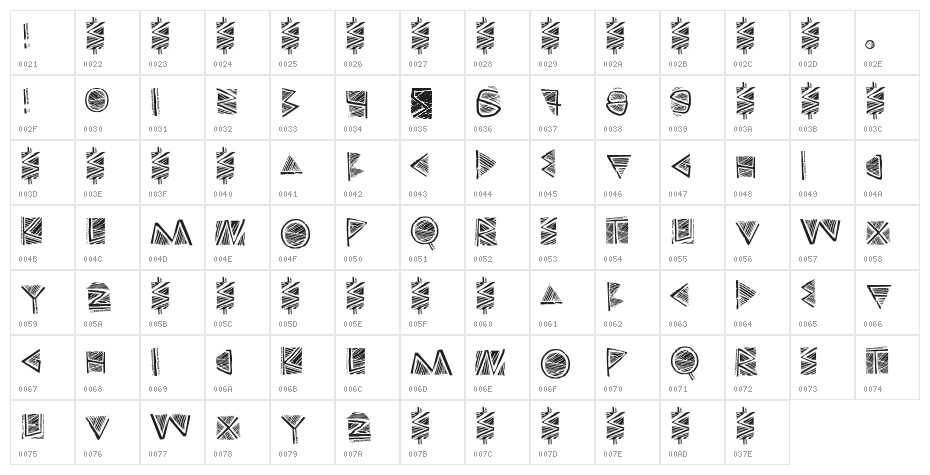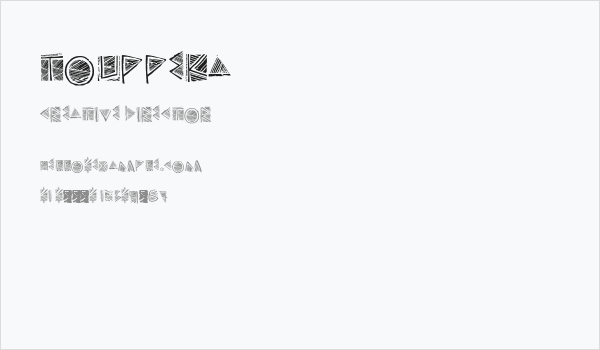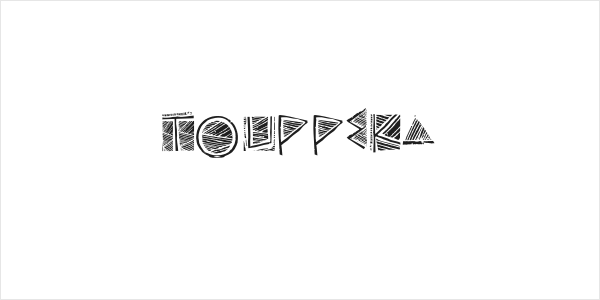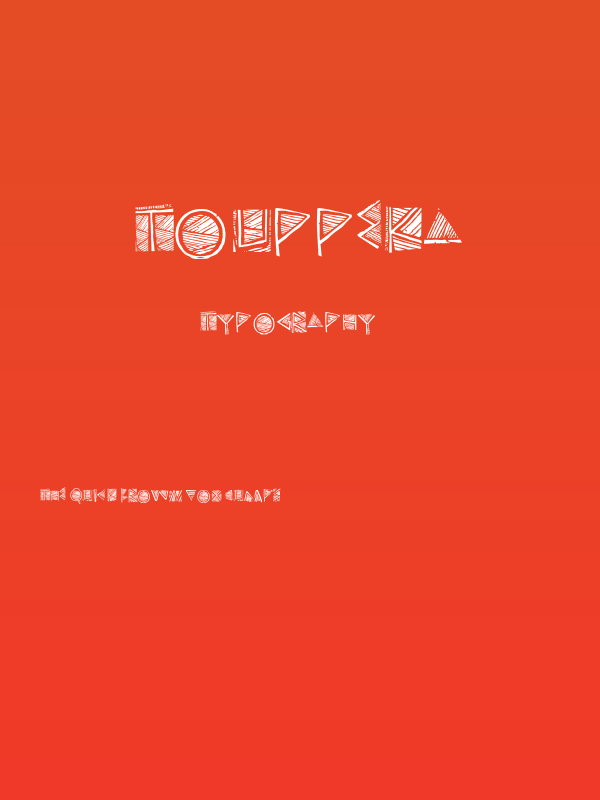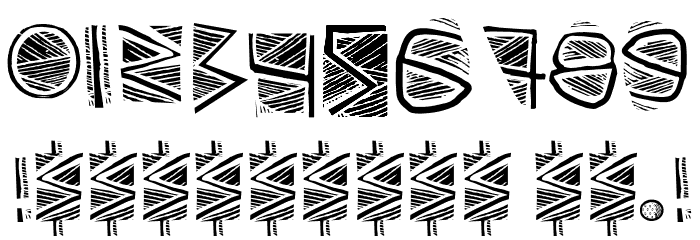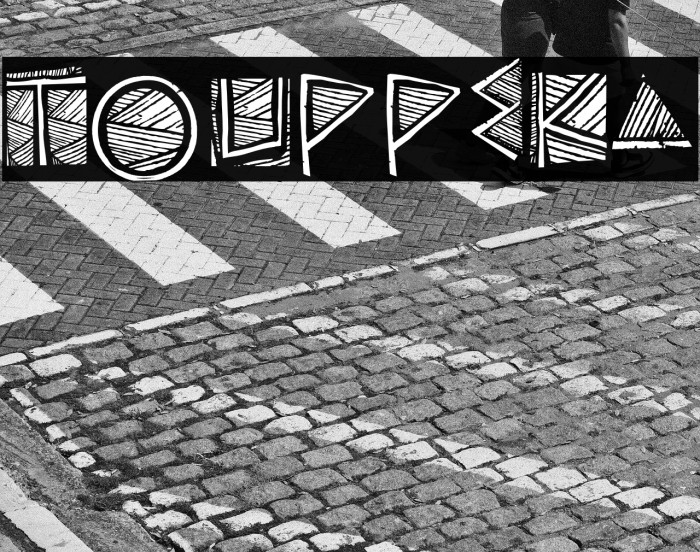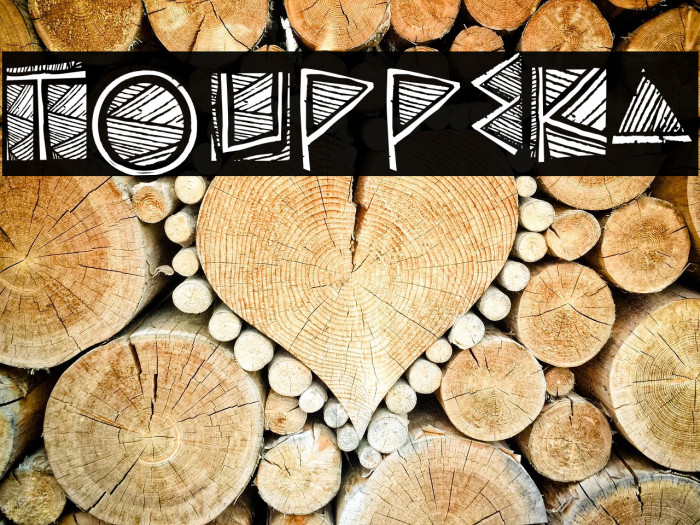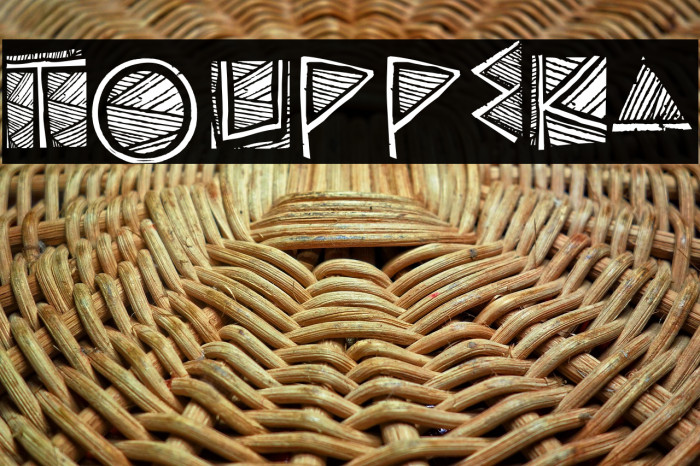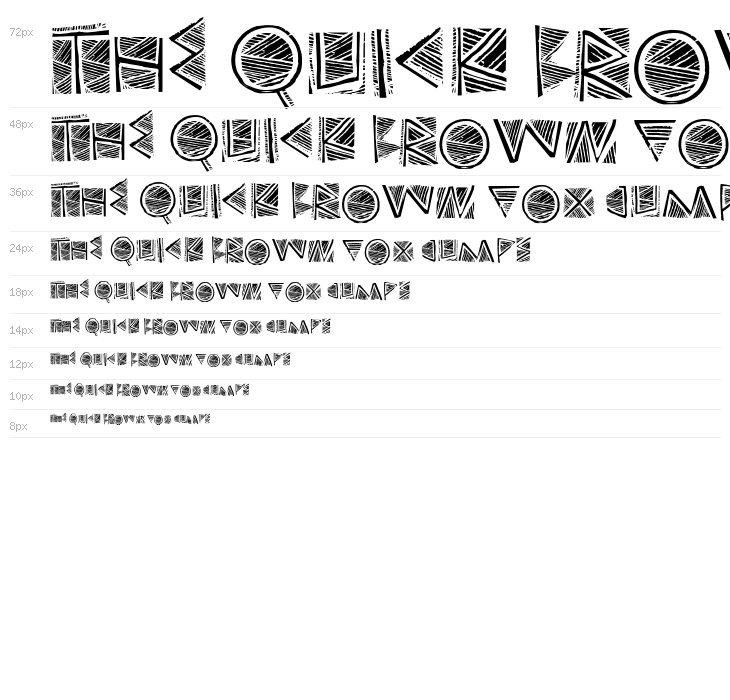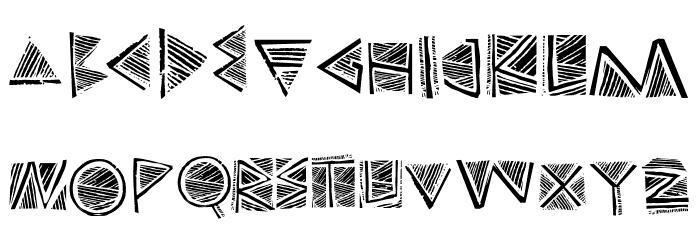
Touppeka Font
Touppeka Description
This font features a bold and dynamic design with a distinctive geometric pattern. Each character is filled with intricate line work, creating a sense of movement and texture. The uppercase and lowercase letters maintain a consistent style, with sharp angles and a bold presence. Numbers and special characters are equally stylized, making them stand out. The overall aesthetic is modern and artistic, suitable for projects that require a strong visual impact.
| Proposed Projects | Ideal for posters, album covers, branding, and any project needing a striking visual element. |